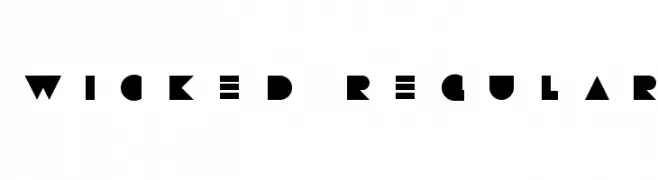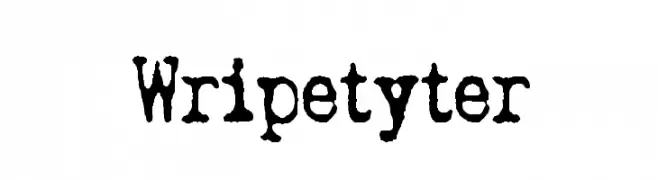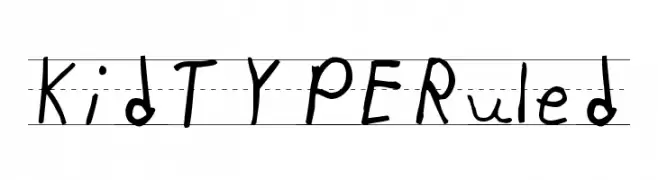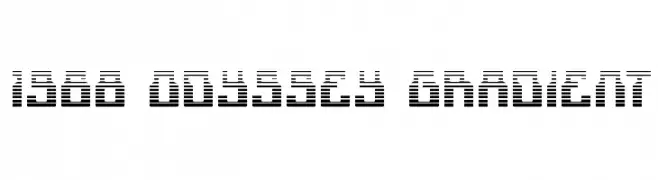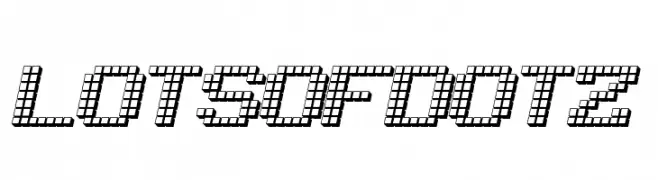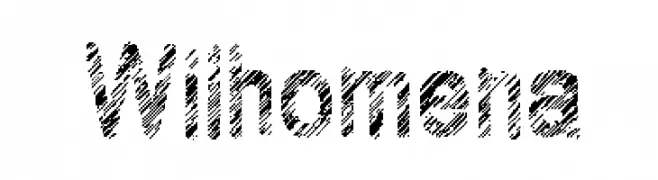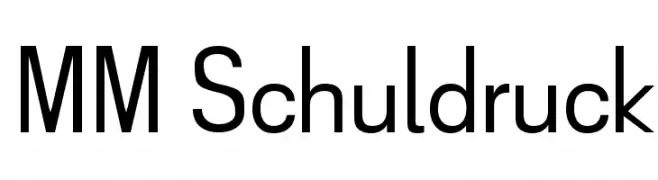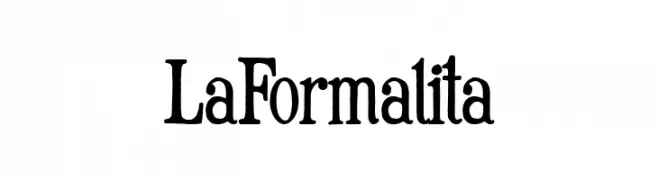
( Emile, Byeongsu Kim - panopt.net )
A bold, geometric font with sharp angles and a modern aesthetic.
( Typodermic Fonts - Ray Larabie - www.typodermicfonts.com/ )
A bold, modern font with thick strokes and tight spacing, perfect for impactful designs.
A bold, distressed typewriter-style font with a vintage, hand-crafted feel.
( Fonts by Scratchones )
Playful handwritten script font.
A futuristic, gradient-striped font with a bold, digital aesthetic.
A pixelated, dot-based font with a modern, tech-inspired style.
( Judex - www.lehrerweb.at/index.php?page=schulschriften )
A modern sans-serif font with clean lines and a slightly condensed form.
A classic serif font with an elegant and formal style.